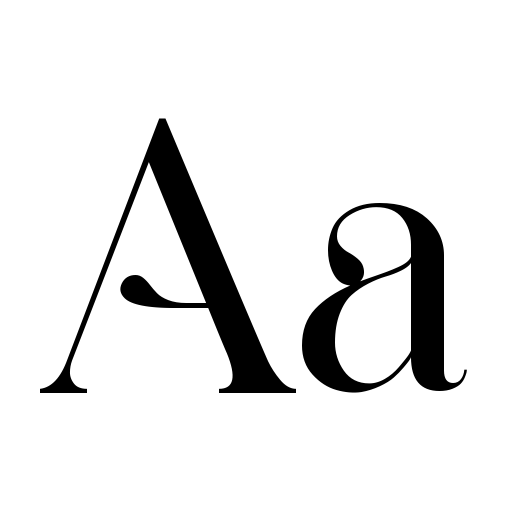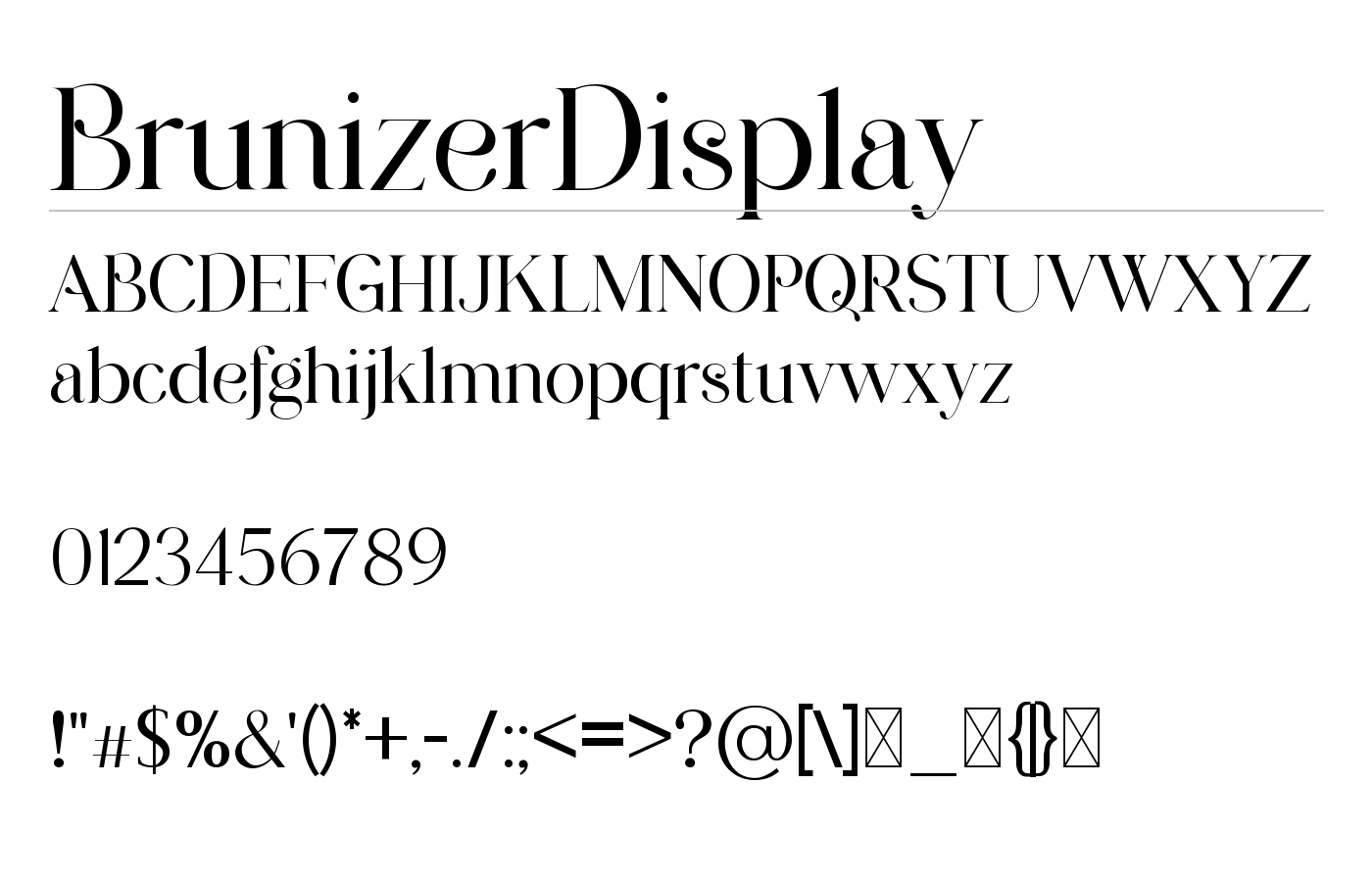
BrunizerDisplay is an elegant Didone serif font with high contrast between thick and thin strokes, giving it a refined and sophisticated look. Its delicate serifs and graceful curves convey a sense of luxury and modernity, making it perfect for fashion branding, editorial headlines, and upscale packaging. This font excels in creating a stylish and polished impression where elegance is essential.
BrunizerDisplay Font
About BrunizerDisplay Font